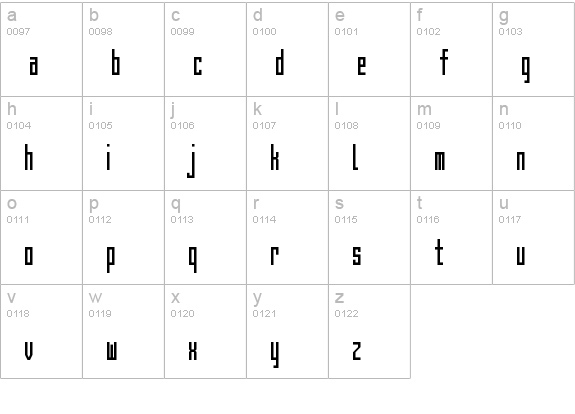
BrightonTwo Square NBP Font Details
BrightonTwo Square NBP is a modern and versatile font that combines the elegance of square-shaped letters with a touch of boldness. This font is perfect for adding a contemporary and edgy vibe to any design project. Its clean lines and geometric structure make it ideal for both digital and print applications. With its unique design, BrightonTwo Square NBP stands out among other fonts, making it a great choice for logos, headlines, and branding materials. Its sleek and professional appearance adds a touch of sophistication to any visual composition. One of the most appealing aspects of BrightonTwo Square NBP is that it is available for free. Yes, you read that right! This font can be freely downloaded at FontsMarket.com, allowing designers, creatives, and enthusiasts to access its beauty without any cost. Whether you are a professional designer or a hobbyist, this font provides an opportunity to enhance your projects without breaking the bank. With its wide range of weights and styles, BrightonTwo Square NBP offers versatility and flexibility. From light to bold, regular to italic, this font has options for every design need. Its extensive character set includes uppercase and lowercase letters, numbers, punctuation marks, and special symbols, ensuring that you have everything you need to create captivating and unique compositions. The legibility and readability of BrightonTwo Square NBP make it suitable for various mediums and sizes. Whether you need a font for a website, a magazine layout, or a poster, this font guarantees clear and readable text, ensuring that your message is effectively conveyed to your audience. So why wait? Don't miss the opportunity to enhance your designs with the elegance and boldness of BrightonTwo Square NBP font. Download it freely at FontsMarket.com and unlock endless possibilities for your creative projects.